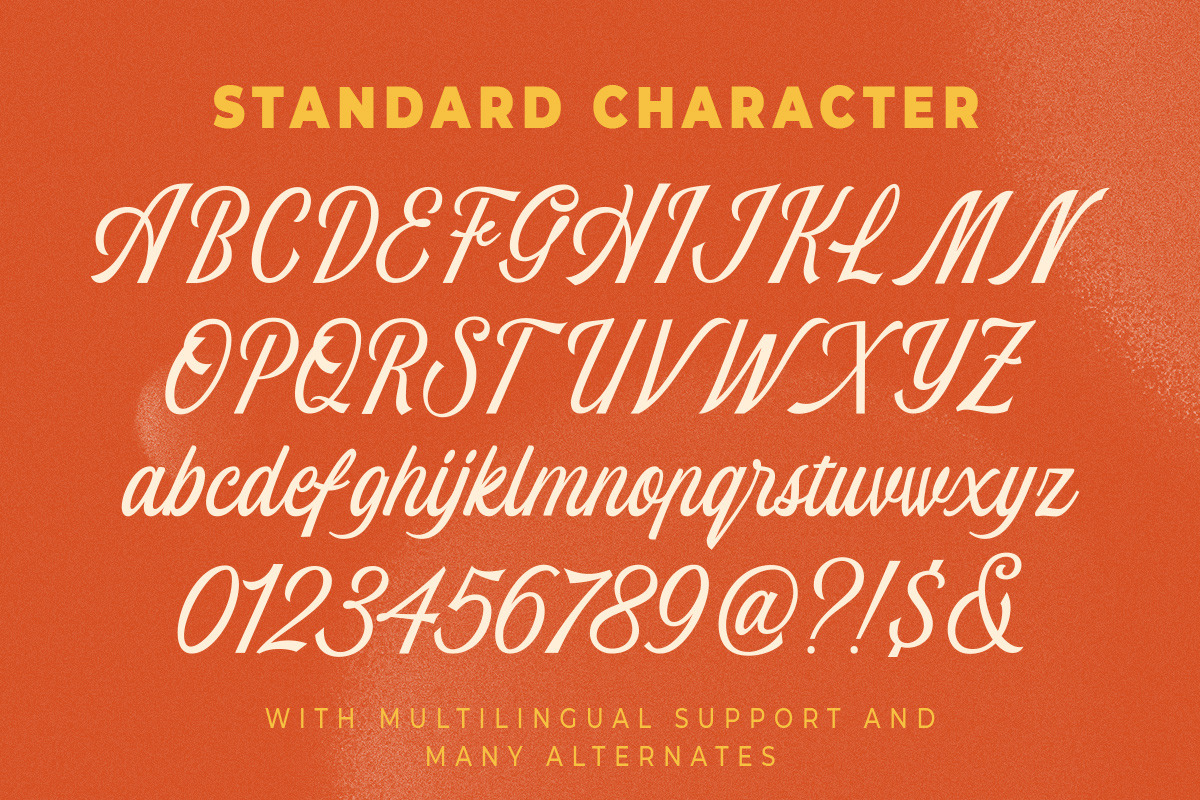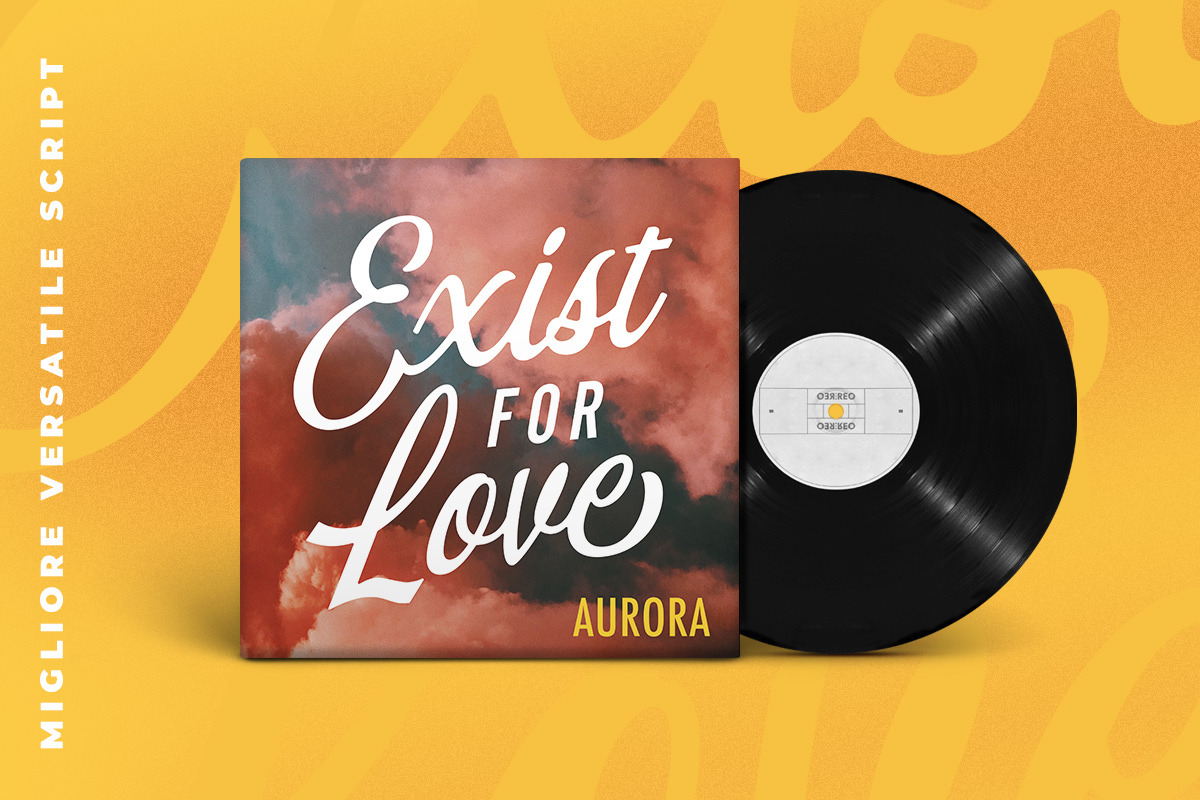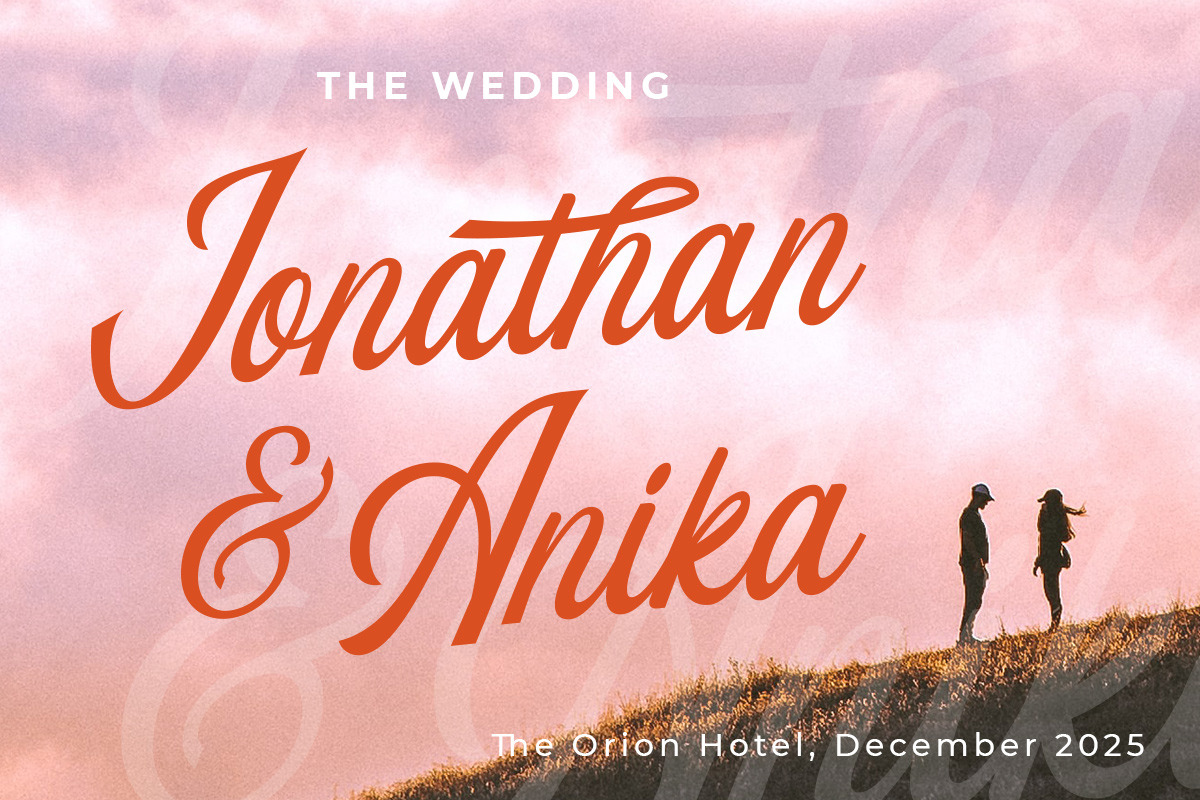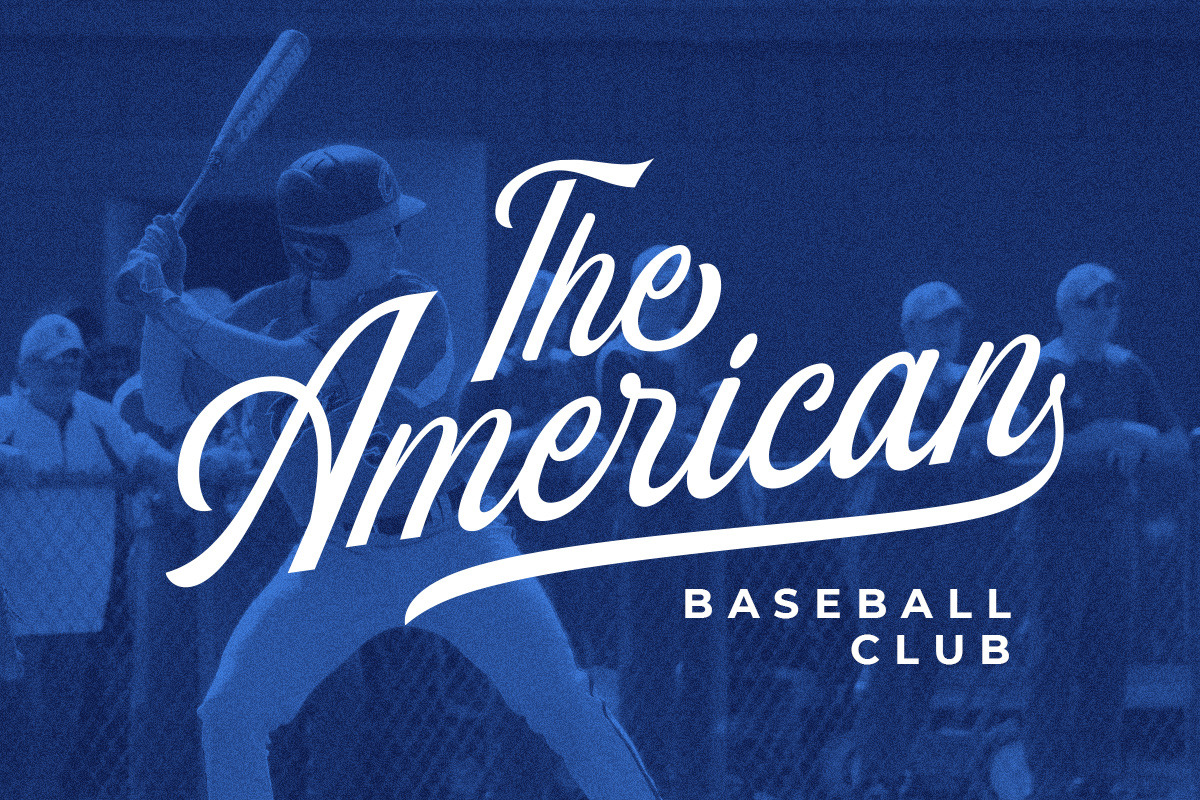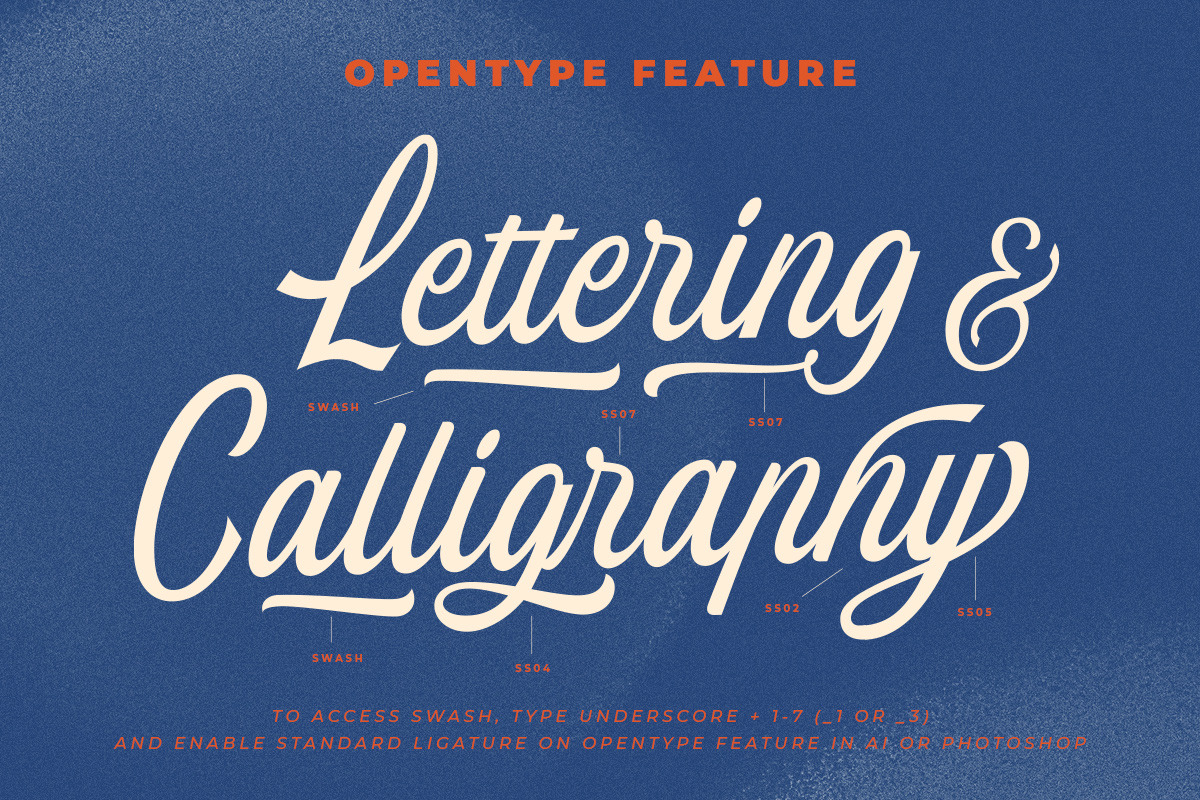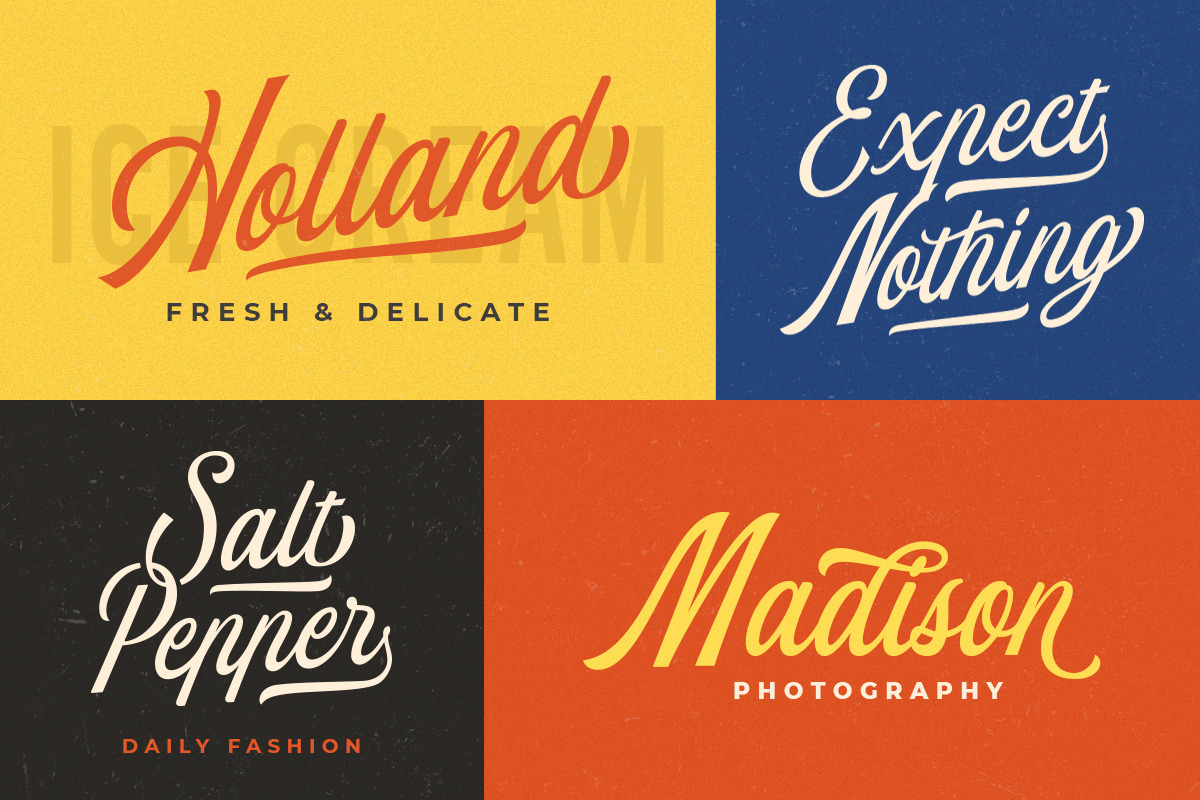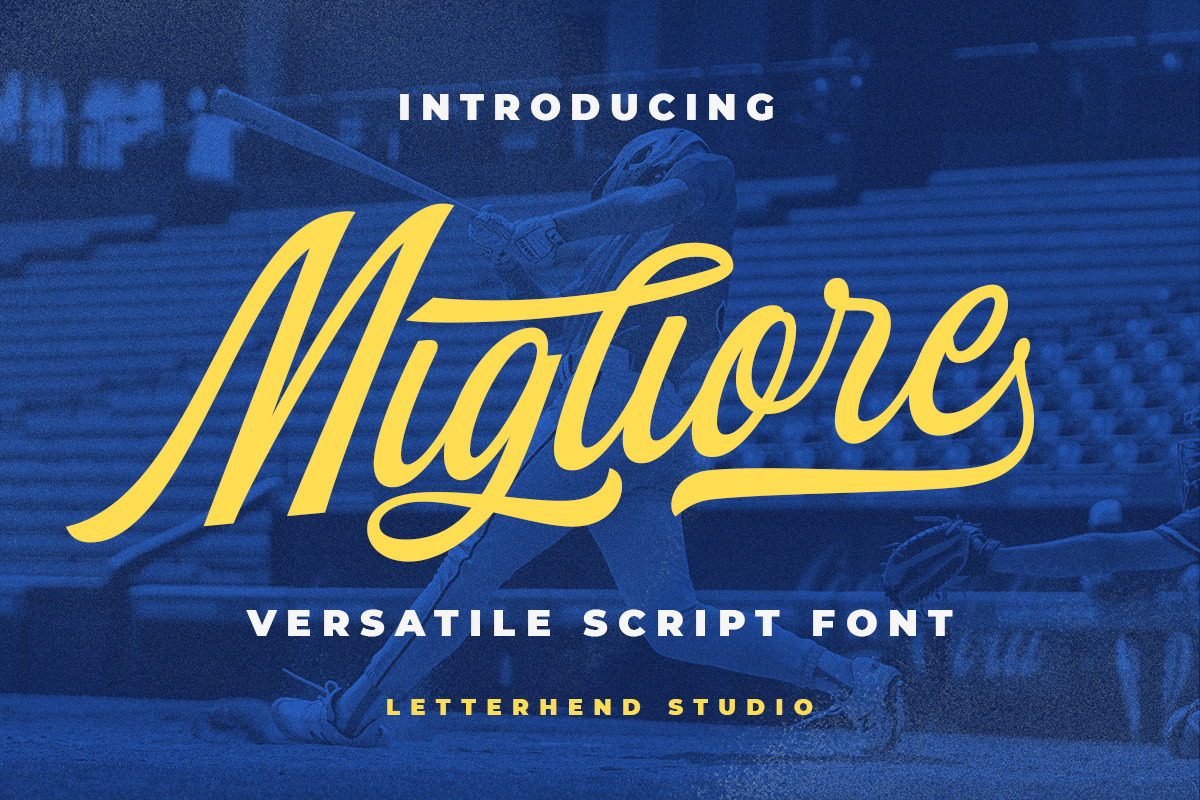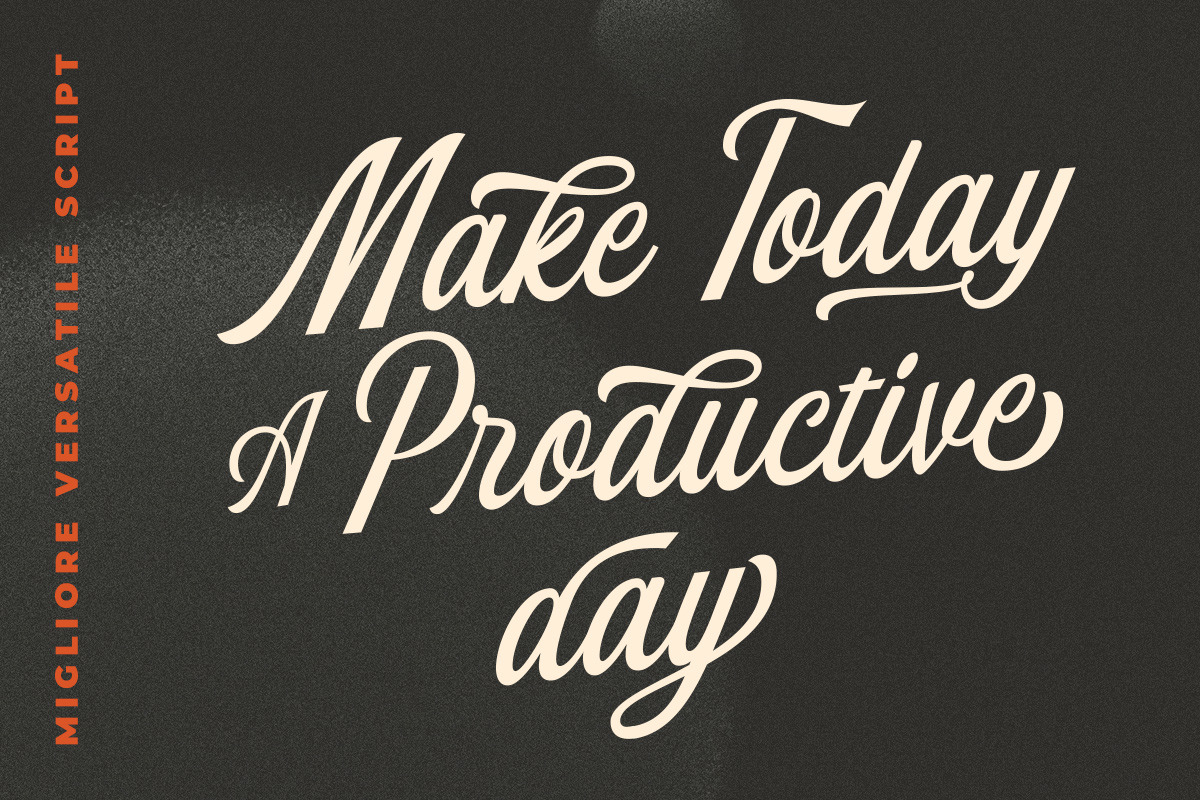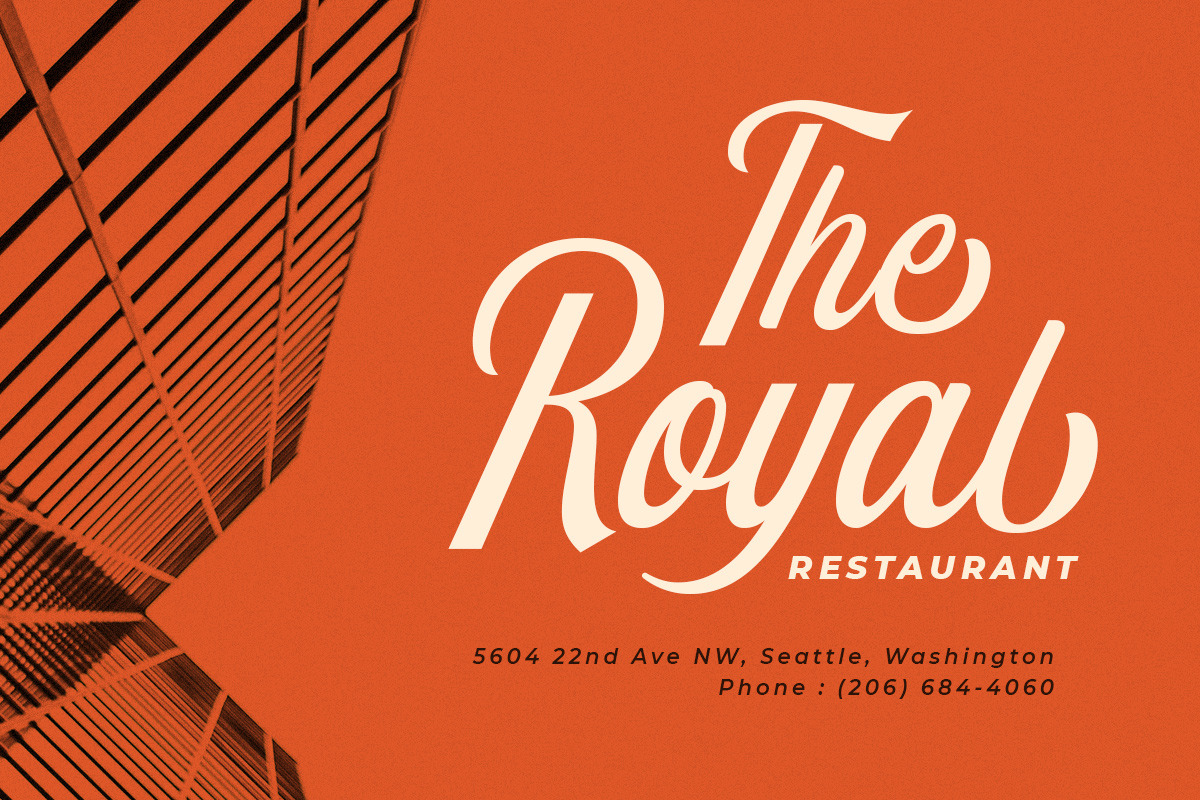
Migliore - Versatile Script Font
Migliore is a versatile and classy script. This font perfectly made to be applied especially in logo, and the other various formal forms such as invitations, labels, logos, magazines, books, greeting / wedding cards, packaging, fashion, make up, stationery, novels, labels or any type of advertising purpose.
- alternates
- swashes - PUA encoded